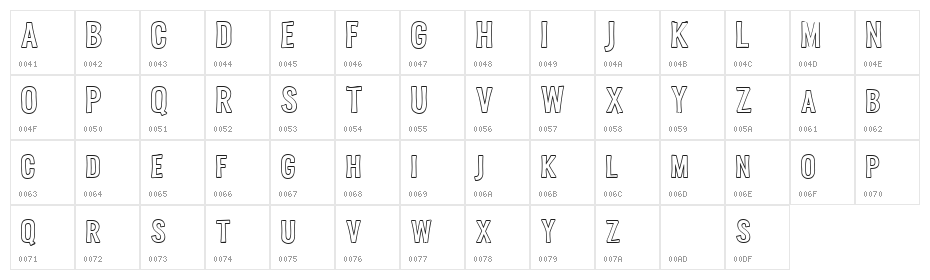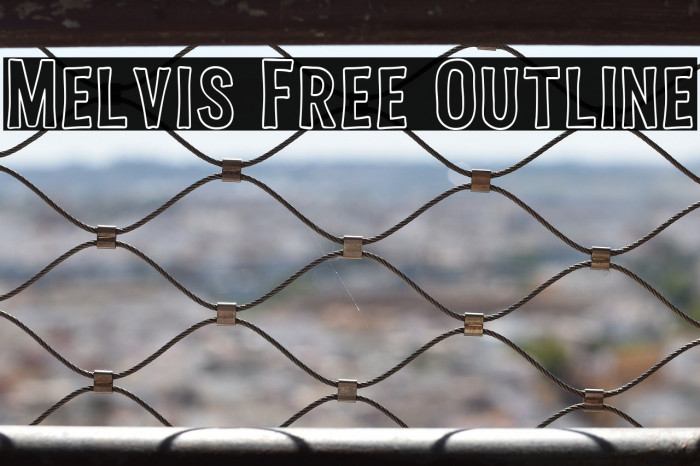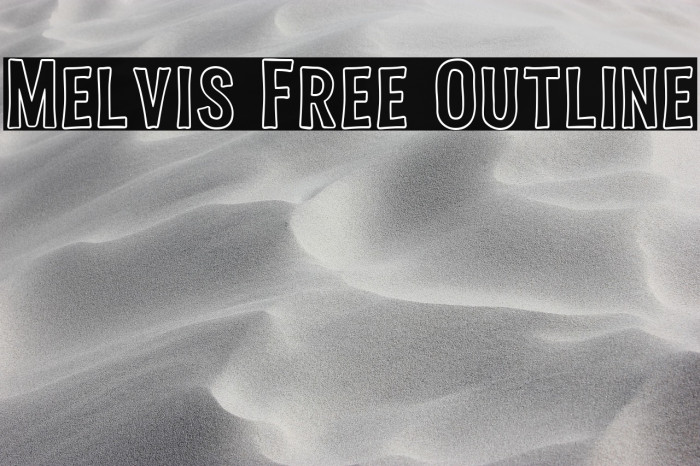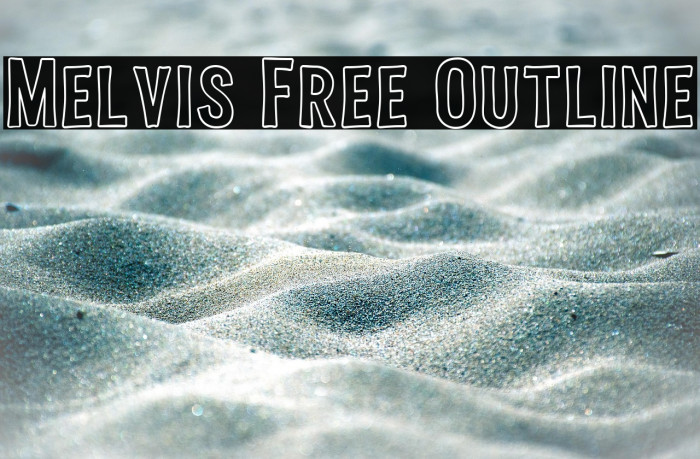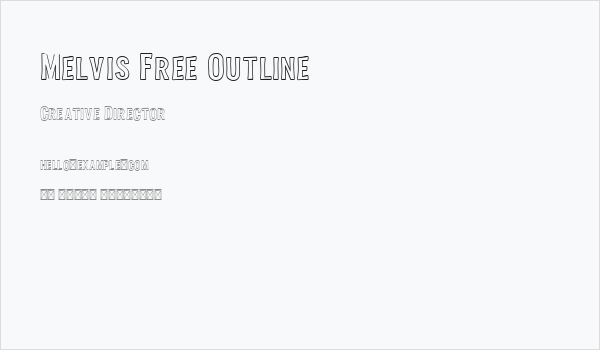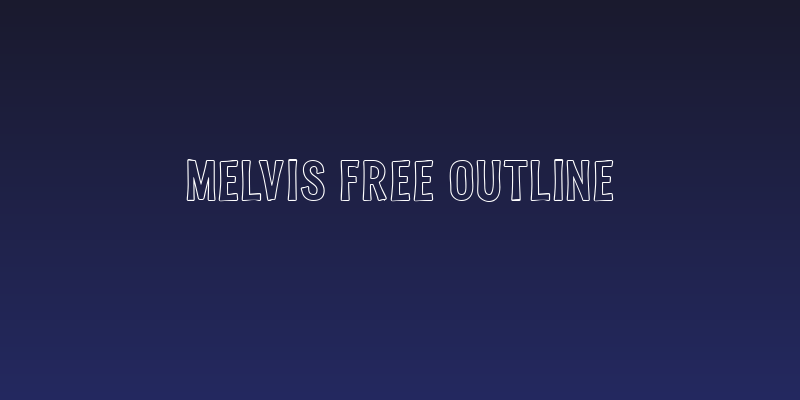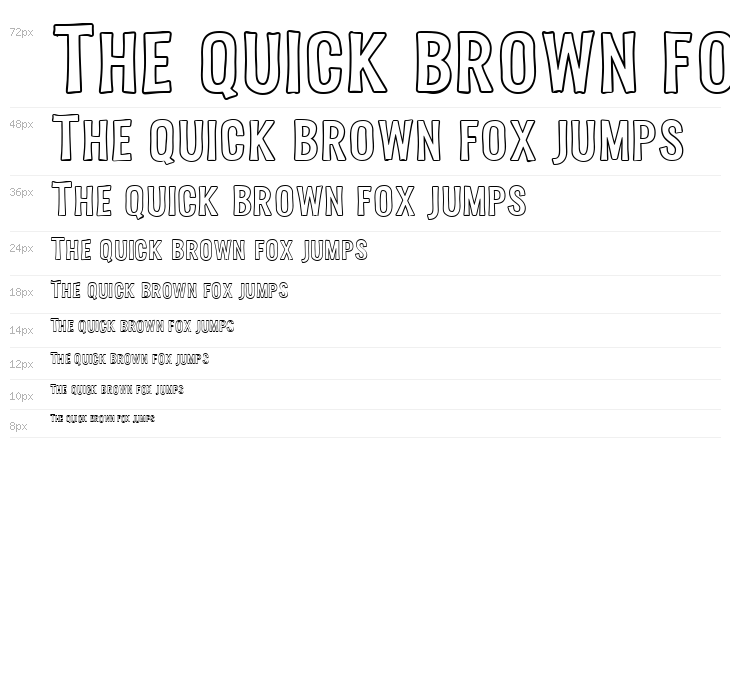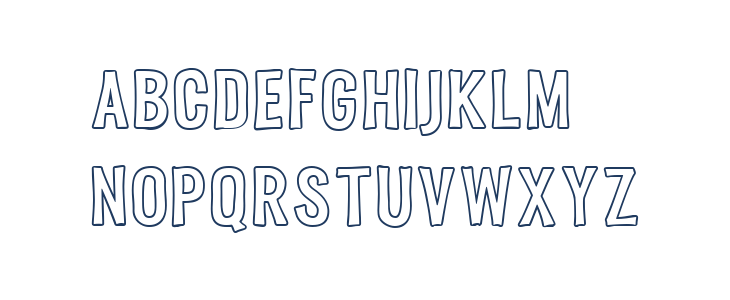
Melvis Free Outline Font
Melvis Free Outline Description
This font features a playful and bold outline style, characterized by its thick, uniform strokes that create a hollow effect. The uppercase letters are evenly spaced, with a slight curvature that adds a friendly and approachable feel. The design is clean and modern, making it suitable for a variety of creative projects. Its outline nature allows for versatility in design, as it can be filled with colors or patterns to enhance visual appeal. The font maintains a consistent weight throughout, ensuring readability while adding a unique touch to any text.
| Proposed Projects | Ideal for posters, logos, children's books, and creative branding projects. |